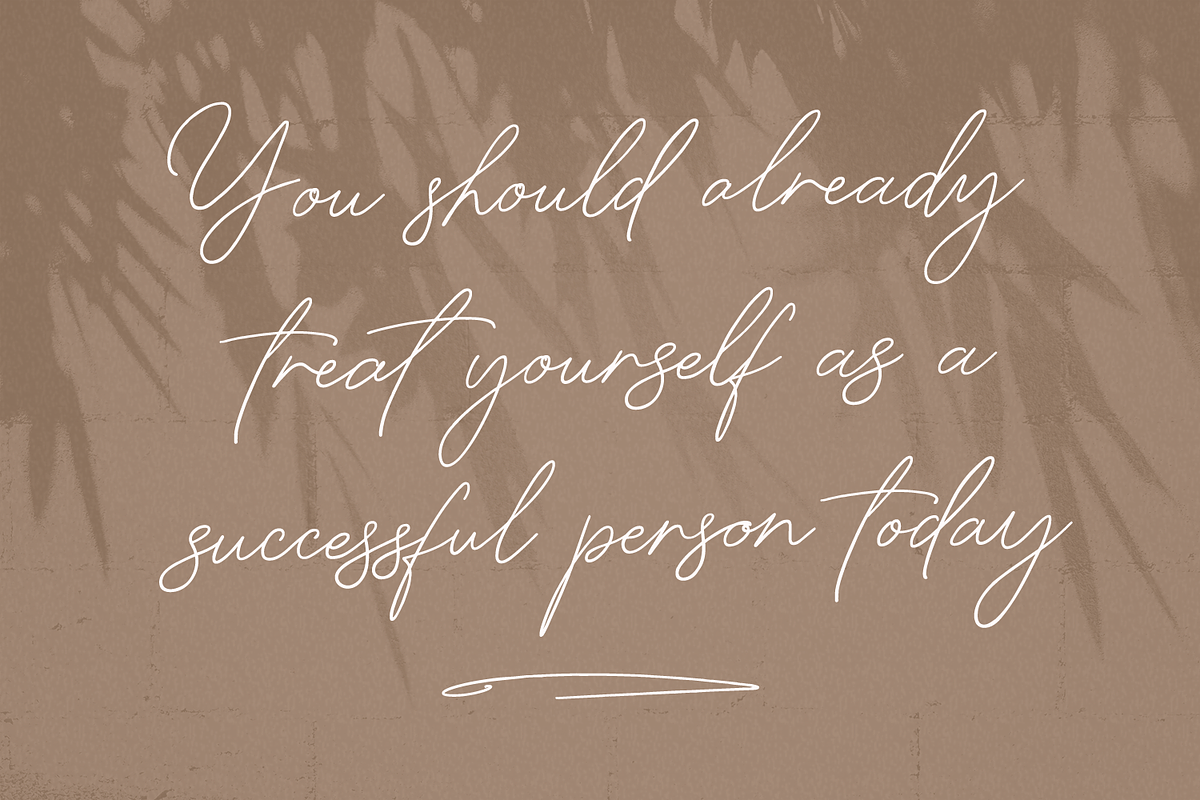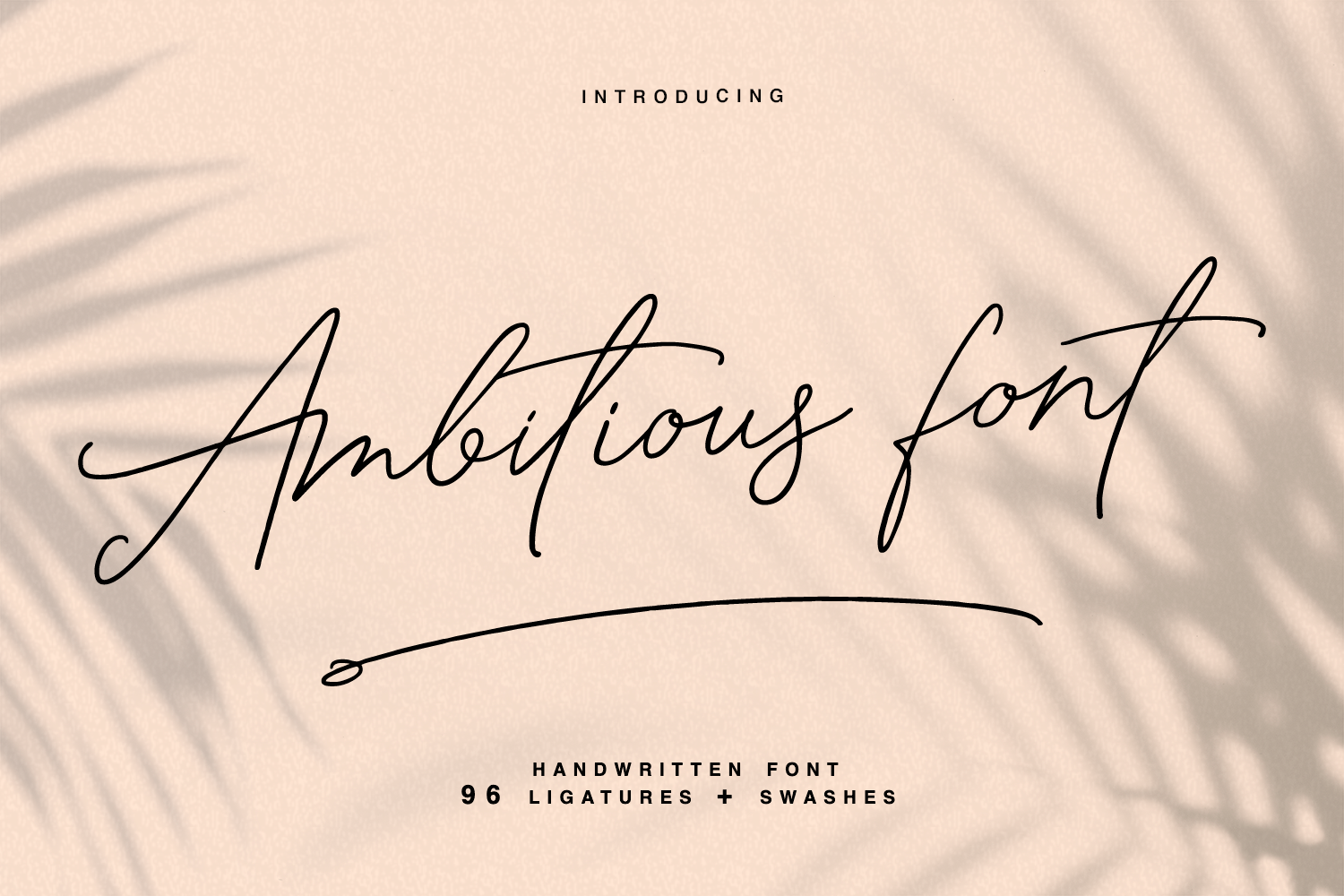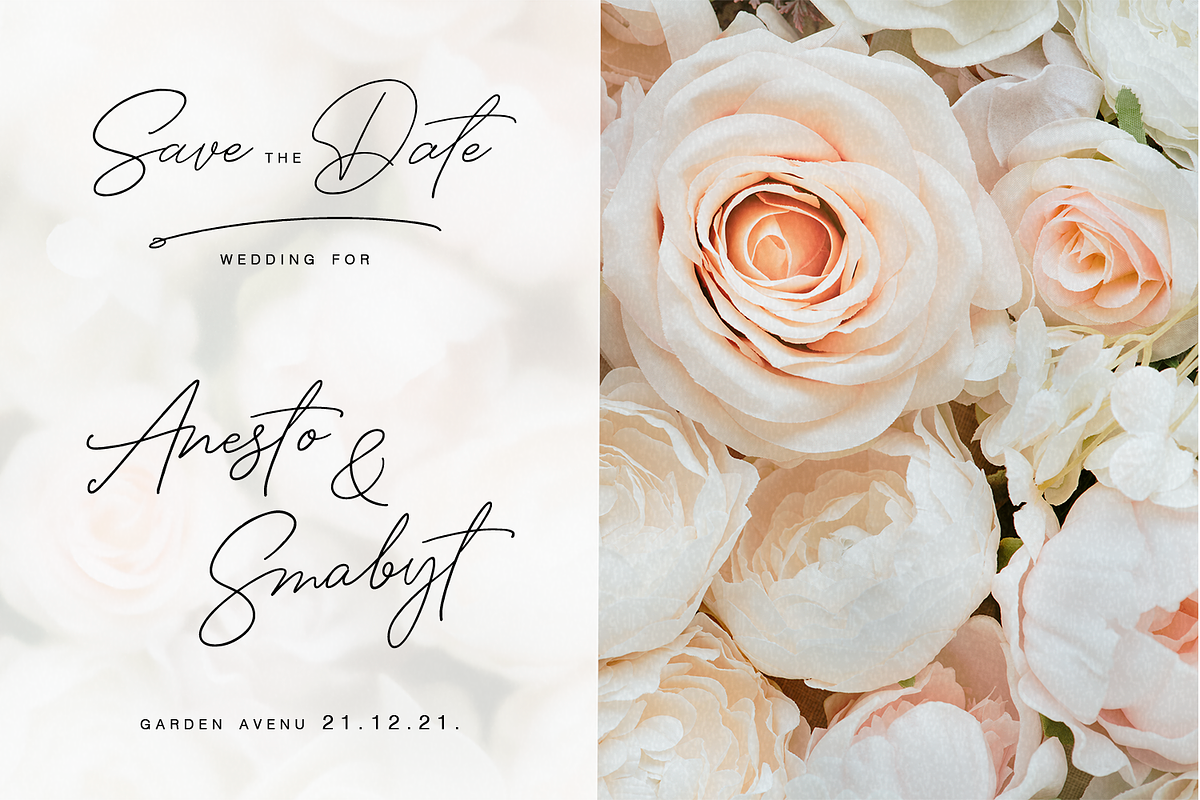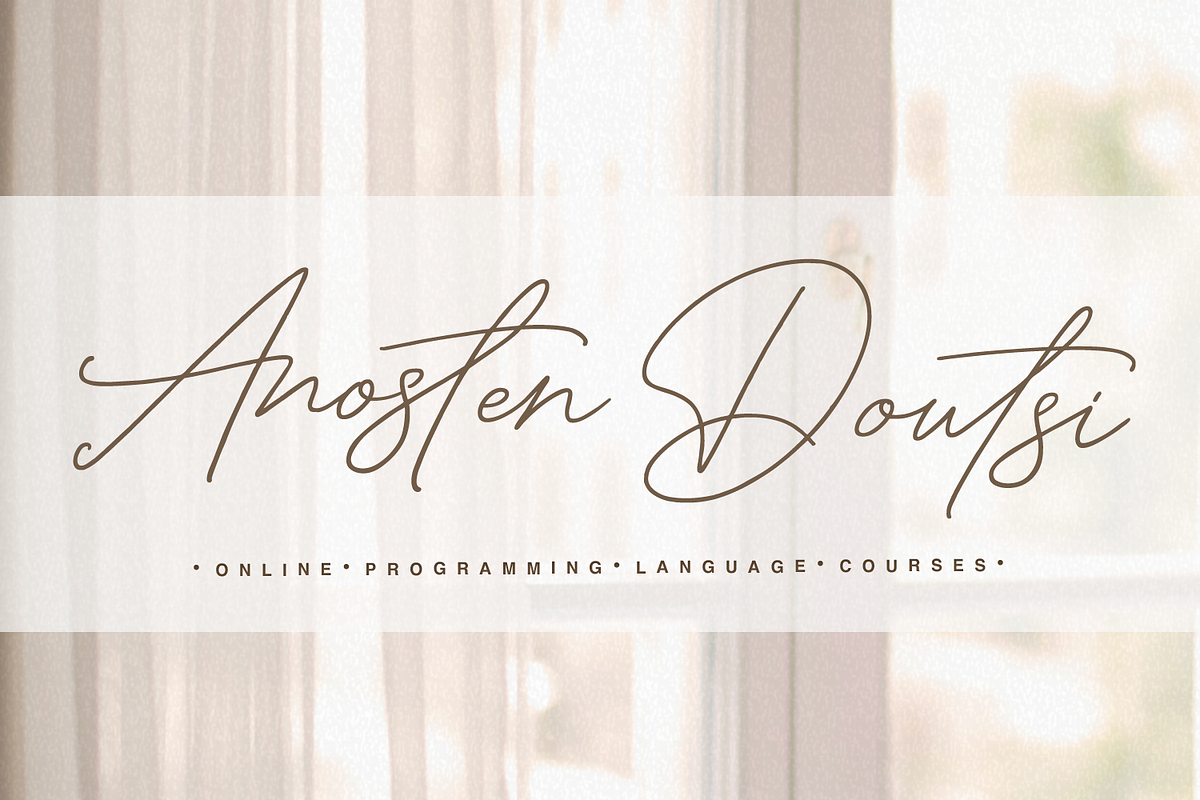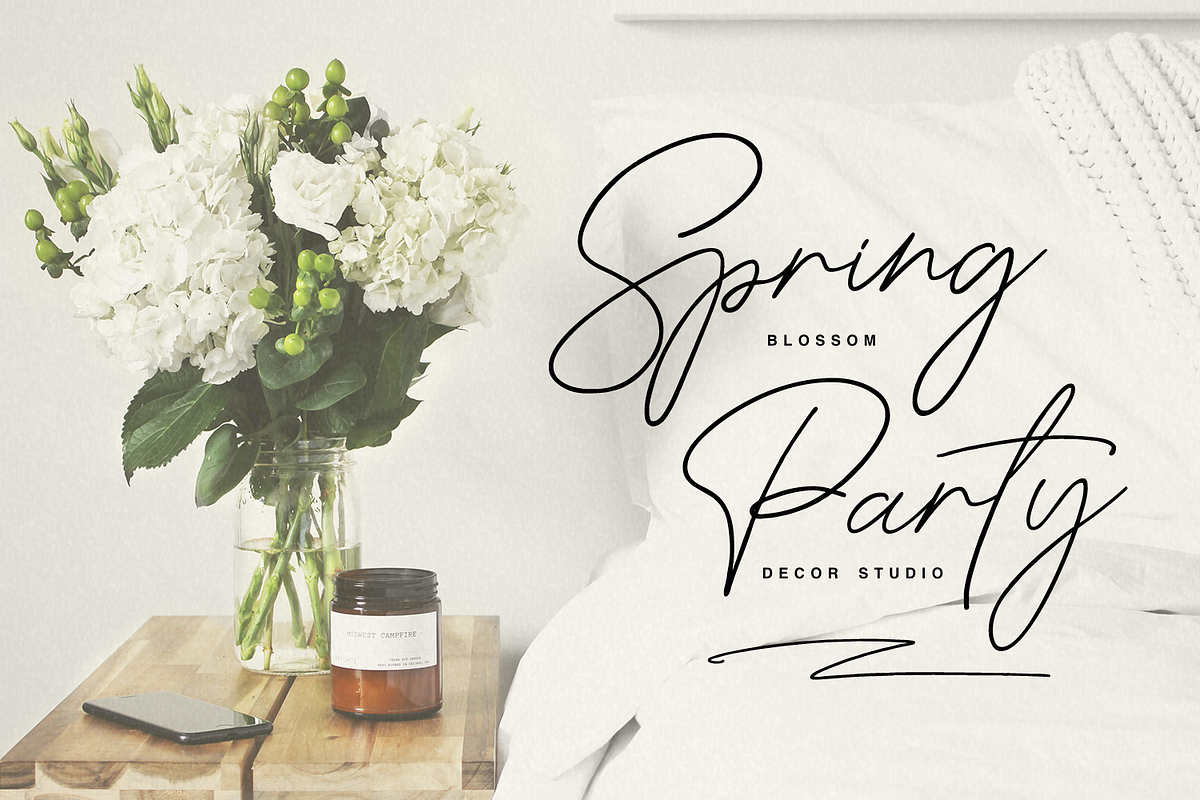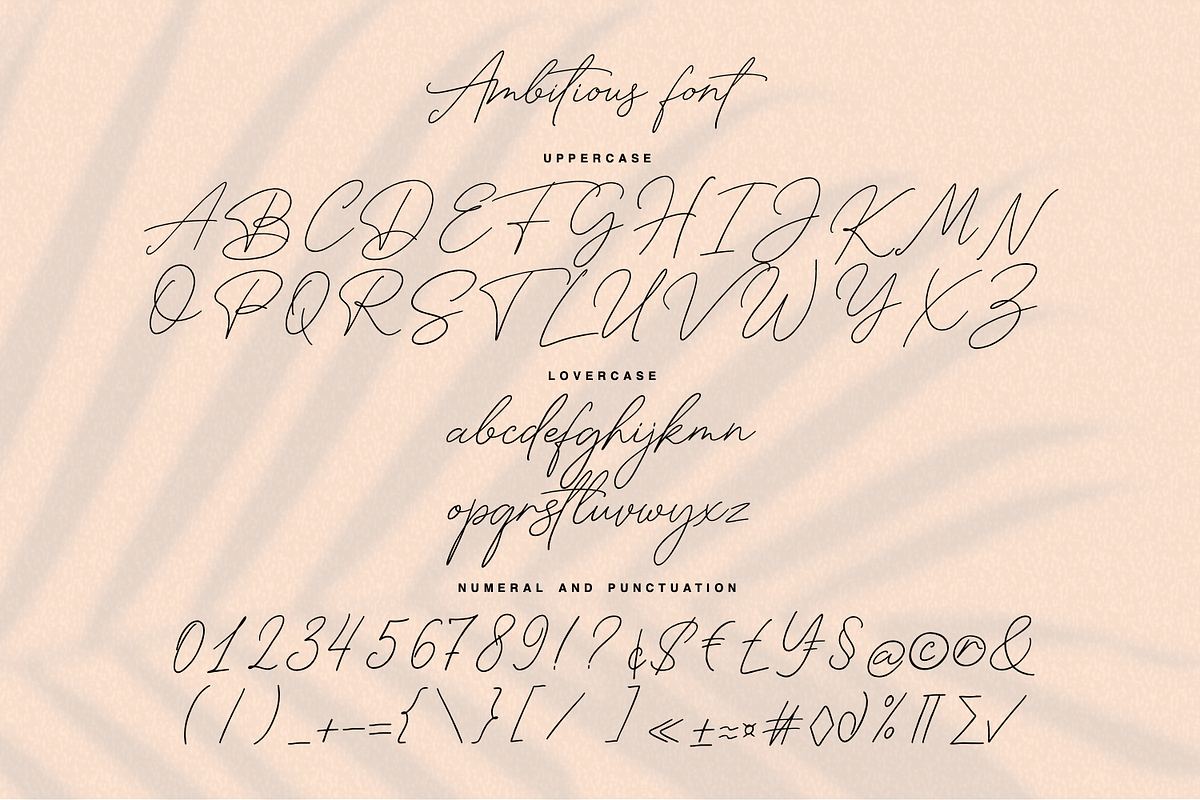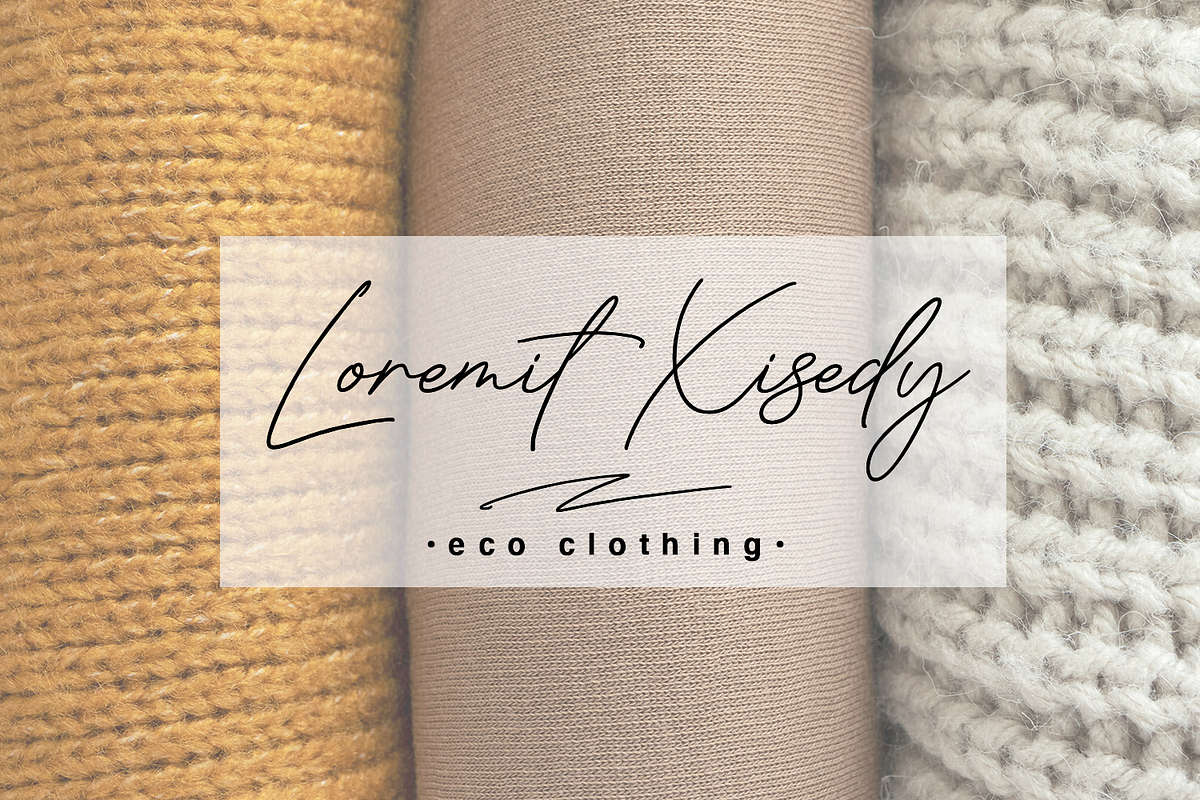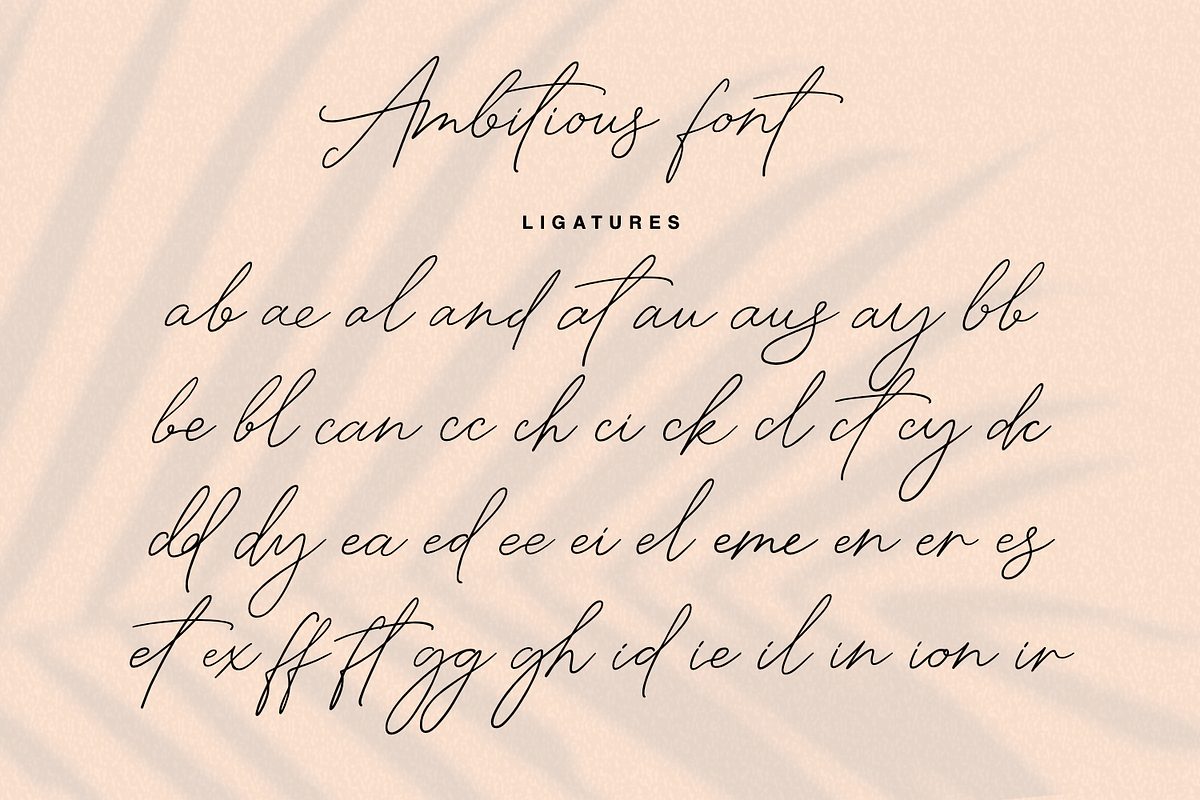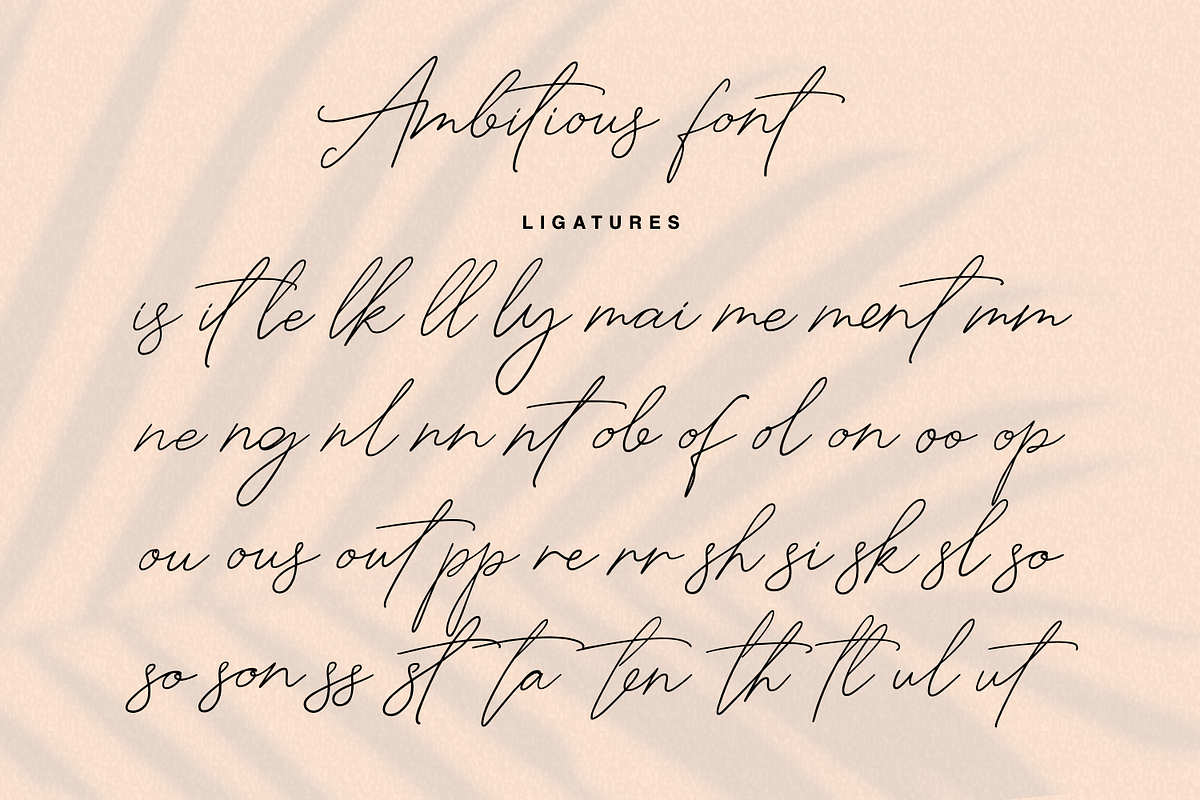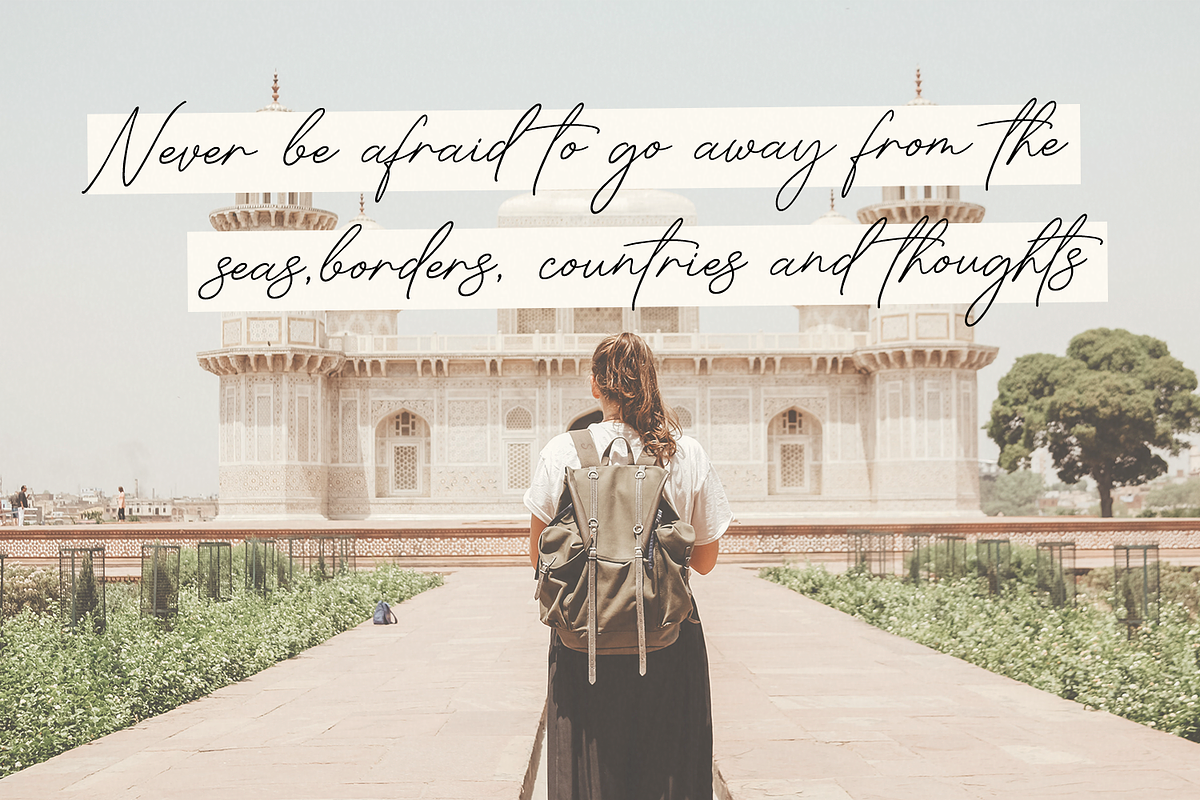
Ambitious - a new fresh handmade calligraphy font.
Very suitable for greeting cards, branding materials, business cards, quotes, posters, and more!This font are perfect for wedding postcard. Or you can create perfect and unique design of your logo, blog, stationery, marketing, magazines and more :)
Ligatures , Alternates